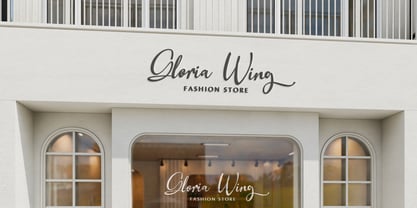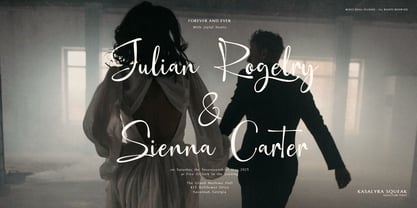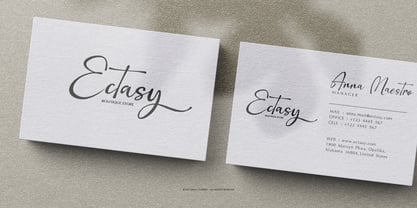
Kasalyra Squeak
by Denustudio
The Kasalyra Squeak Font Family was designed by Dede Nugraha and published by Denustudio. Kasalyra Squeak contains 2 styles and family package options. More about this family
Kasalyra Squeak | Signature Font, from Denustudios, suitable for any projects such as: logos, branding projects, homeware designs, product packaging, mugs, quotes, posters, shopping bags, t-shirts, book covers, name card, invitation cards, greeting cards, label, photography, watermark, special events, and all your other lovely projects that need Signature Font a taste.
• Regular and Italic
• Alternate and Ligature
Designers: Dede Nugraha
Foundry: Denustudio